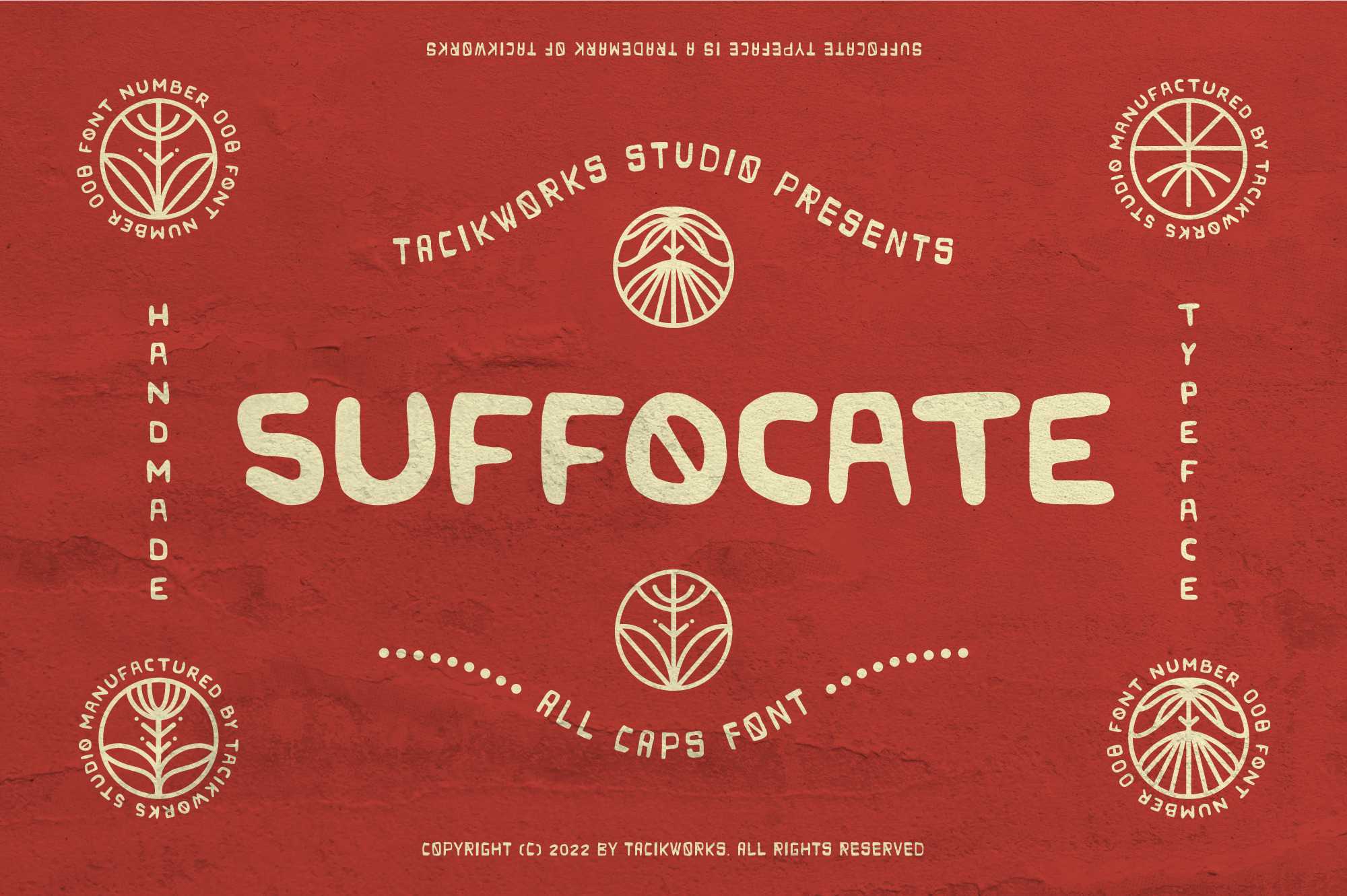
Suffocate Typeface
Tacikworks studio presents Suffocate Typeface, it's a all caps font which is inspired by retro designs. Make the classic impression of this font stand out more. It is suitable for creating vintage designs such as logo posters, merchandise, clothing, brochures, business cards and others.